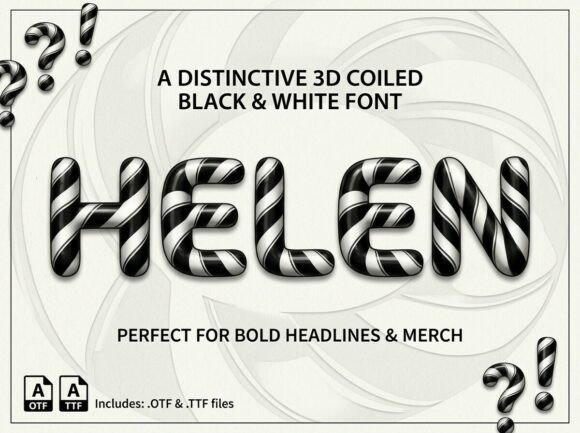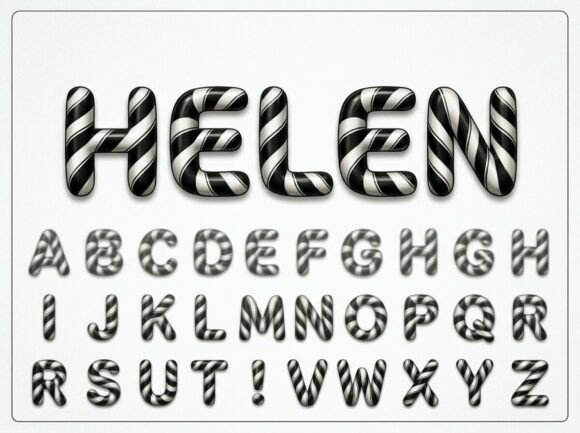
Introducing Helen Font: A Stunning Decorative Display Font
Are you tired of using the same old fonts for your creative projects? Look no further than Helen Font, a breathtaking decorative display font designed to turn heads. With its unique artistic elements and strong visual personality, this font is perfect for creators who want to make a statement and break away from the ordinary.
What Makes Helen Font Special?
Helen Font is a versatile decorative font that is specifically designed to be the center of attention. Its stunning artistic elements and strong visual personality make it perfect for a variety of creative projects, including bold headlines, artistic logos, and creative packaging. Whether you’re a designer, crafty DIY enthusiast, or entrepreneur, this font is sure to elevate your work to the next level.
Key Features of Helen Font
- Unique Artistic Elements: Helen Font features unique artistic elements that set it apart from other fonts. Each letter is carefully crafted to make a statement and add a touch of elegance to your designs.
- Strong Visual Personality: This font has a strong visual personality that is sure to grab attention. Its bold and eye-catching design makes it perfect for headlines, logos, and other creative projects.
- Versatile: Helen Font is versatile enough for a variety of creative projects, including bold headlines, artistic logos, and creative packaging.
- Professional and Polished Finish: Despite its bold and artistic design, Helen Font maintains a professional and polished finish that is suitable for even the most high-end projects.
Who is Helen Font For?
Helen Font is perfect for:
- Designers: Graphic designers, branding experts, and visual artists who want to add a touch of elegance and sophistication to their designs.
- Crafters: Crafty DIY enthusiasts who want to create unique and eye-catching projects, such as handmade cards, invitations, and decorations.
- Entrepreneurs: Business owners and marketers who want to create bold and attention-grabbing headlines, logos, and packaging that sets their brand apart.
Tips for Using Helen Font
Here are some tips for getting the most out of Helen Font:
- Use it for Headlines: Helen Font is perfect for bold headlines and titles. Use it to grab attention and add a touch of elegance to your designs.
- Experiment with Colors: Helen Font looks great in a variety of colors. Experiment with different colors and gradients to add depth and interest to your designs.
- Pair it with Other Fonts: Helen Font pairs well with other fonts. Experiment with different font combinations to create unique and eye-catching designs.